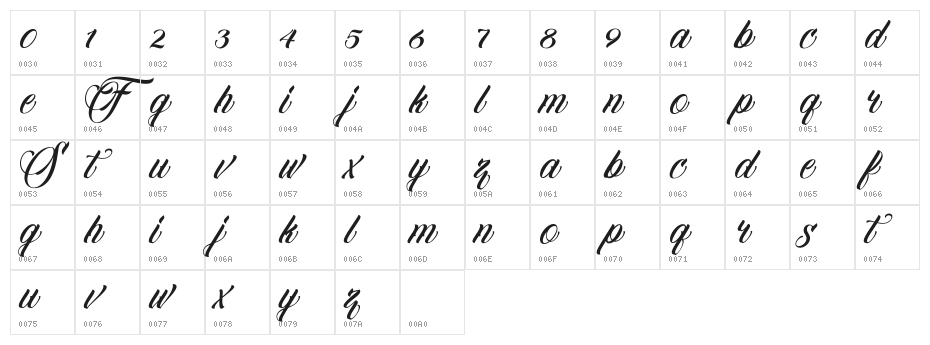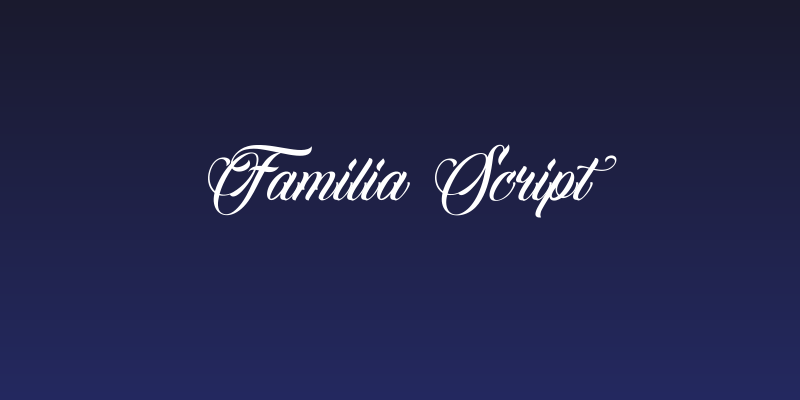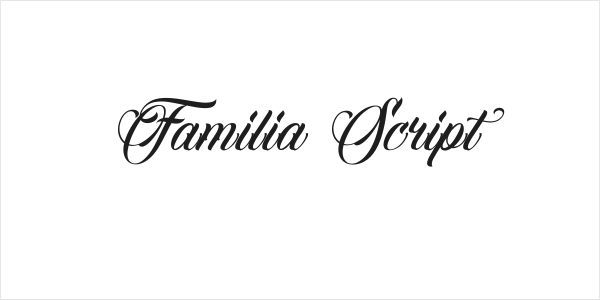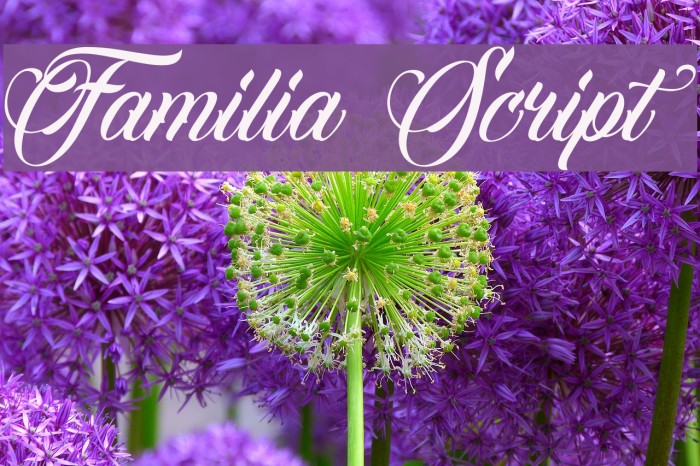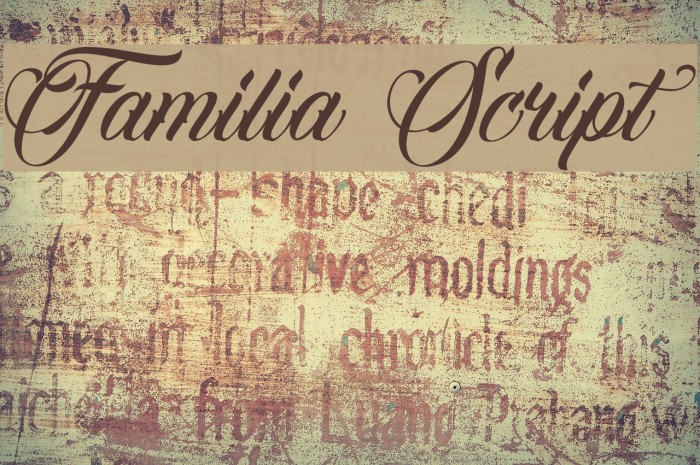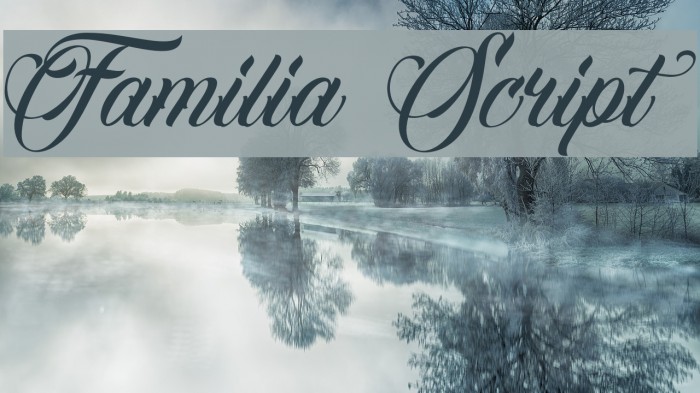
Familia Script Font
Familia Script Description
This font is a beautifully crafted script typeface that exudes elegance and sophistication. The flowing, cursive letters are intricately designed with smooth curves and flourishes, giving it a classic and timeless appeal. Each character seamlessly connects to the next, creating a harmonious and fluid appearance. The uppercase letters are particularly ornate, featuring elaborate swashes and loops that add a touch of grandeur. The lowercase letters maintain a consistent style, with gentle slants and rounded forms that enhance readability. This font is perfect for projects that require a touch of elegance and refinement, such as wedding invitations, formal event programs, or luxury branding.
| Proposed Projects | Ideal for wedding invitations, formal event programs, luxury branding, and elegant stationery. |